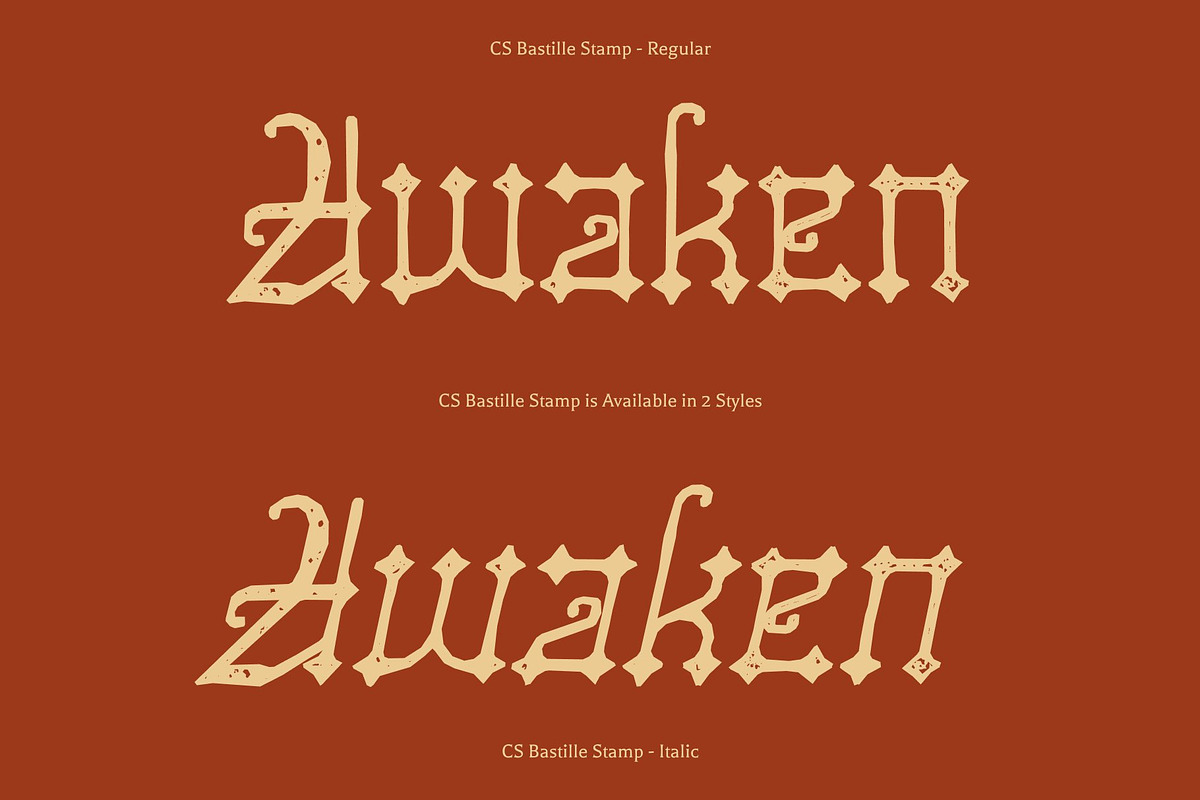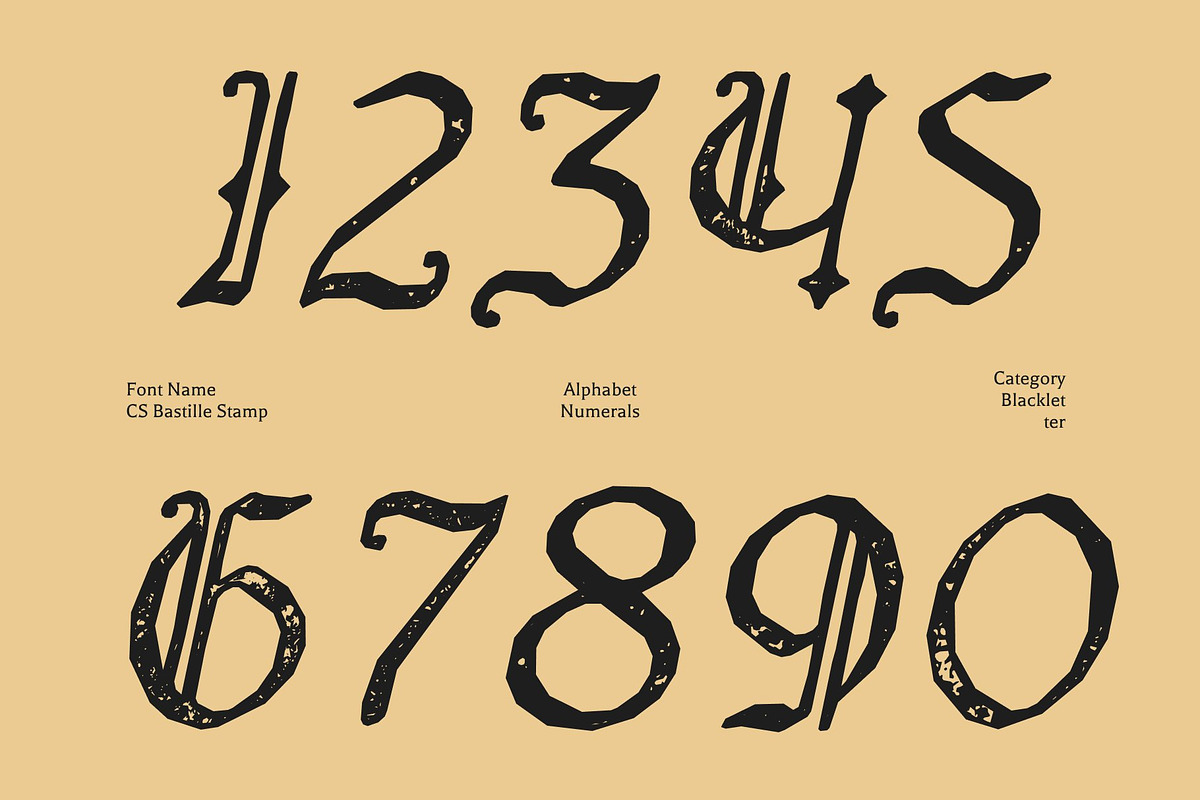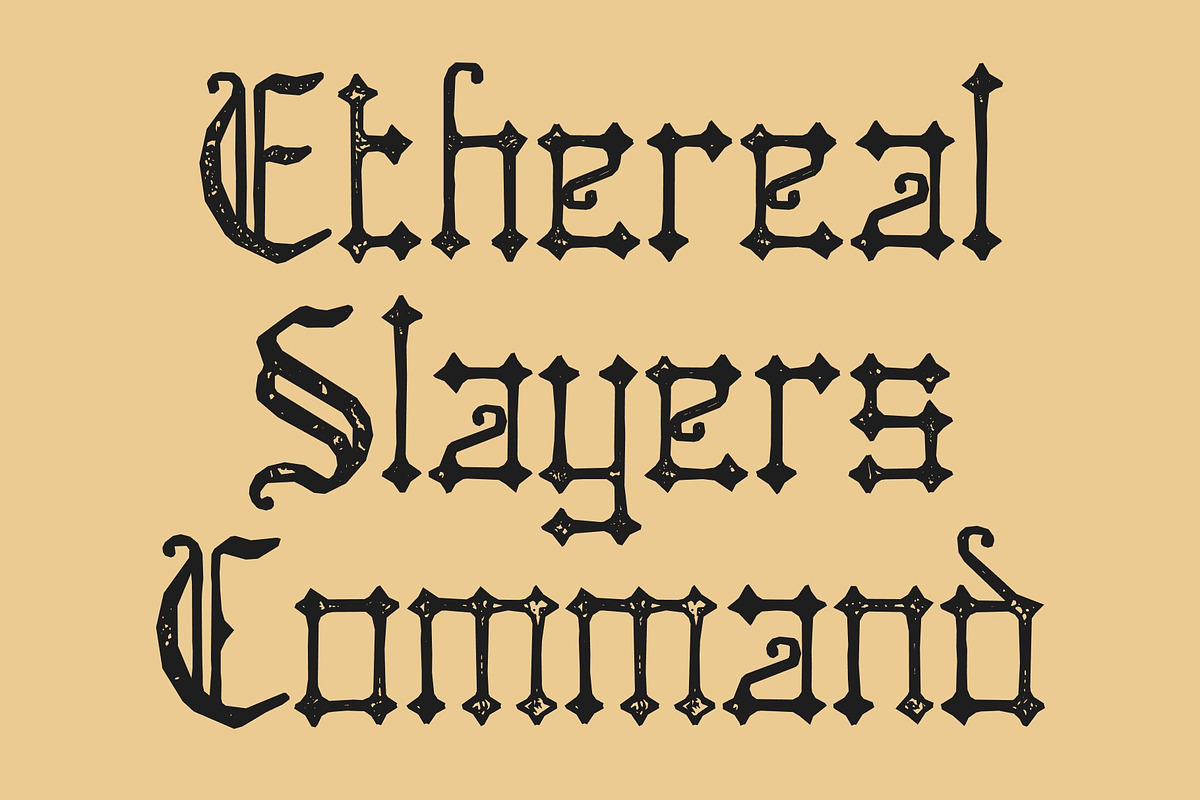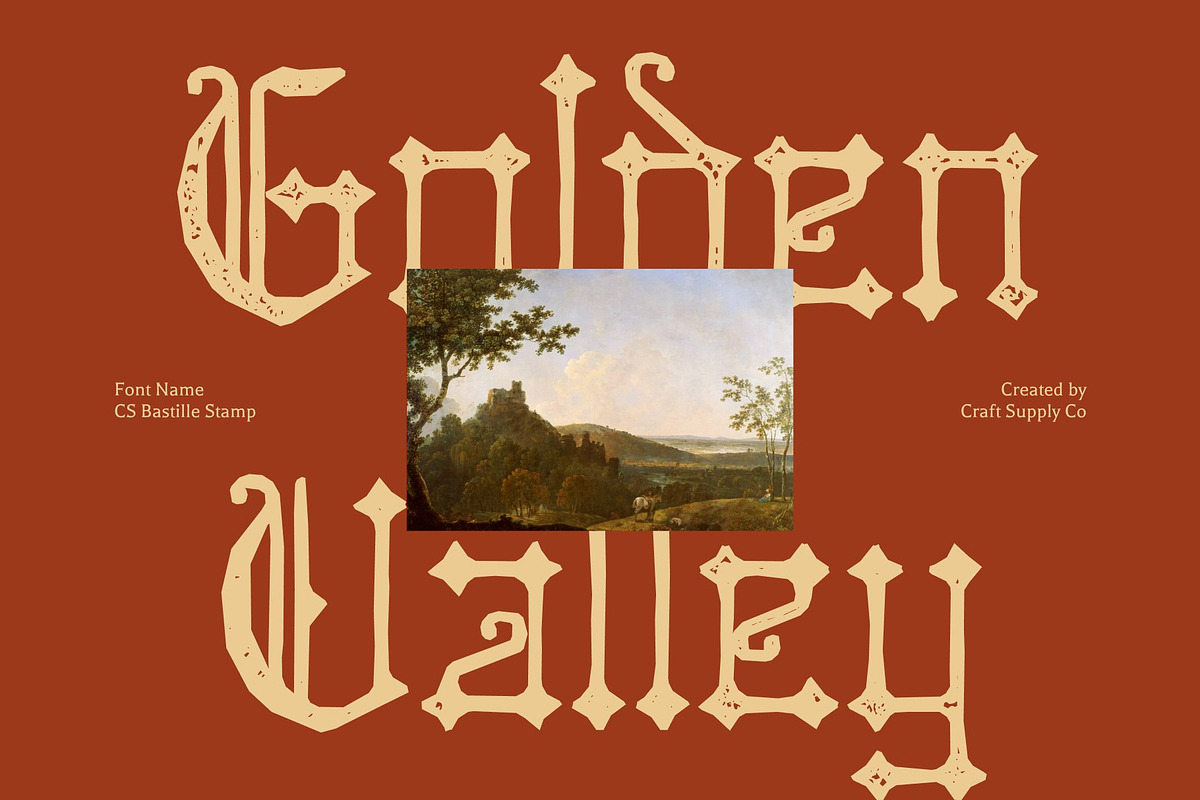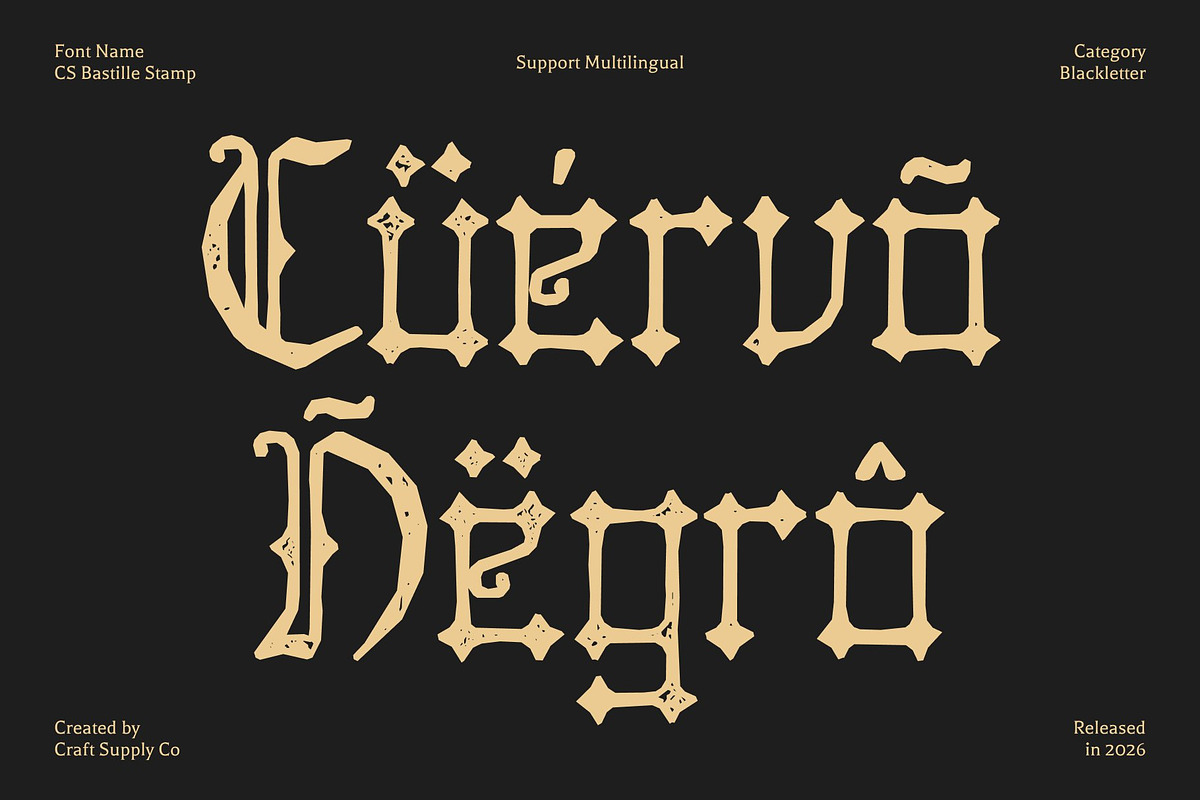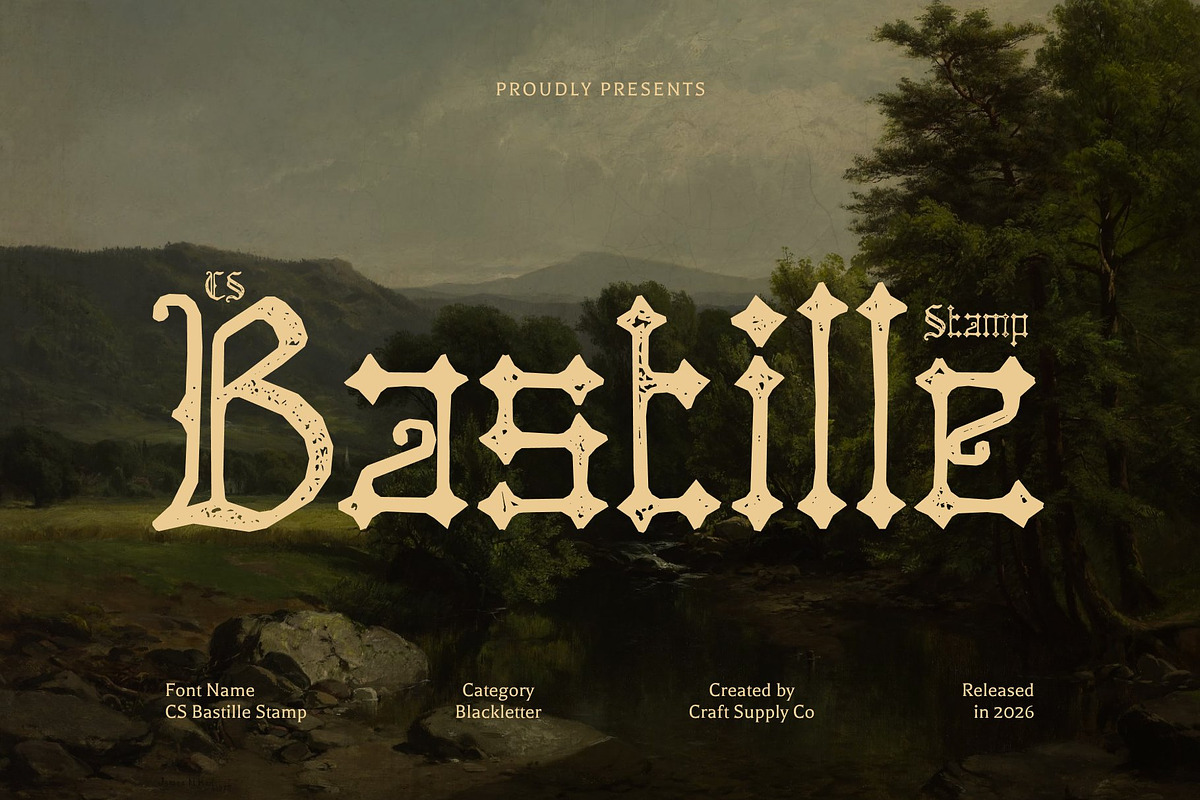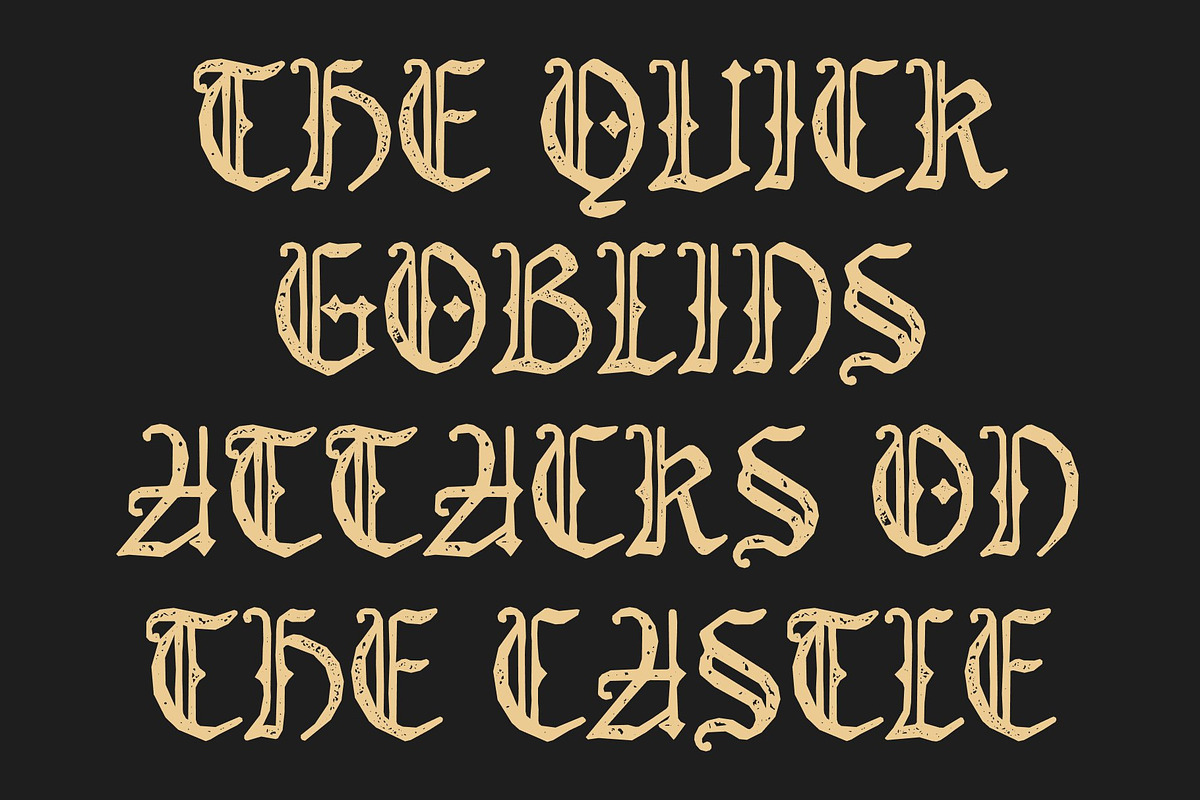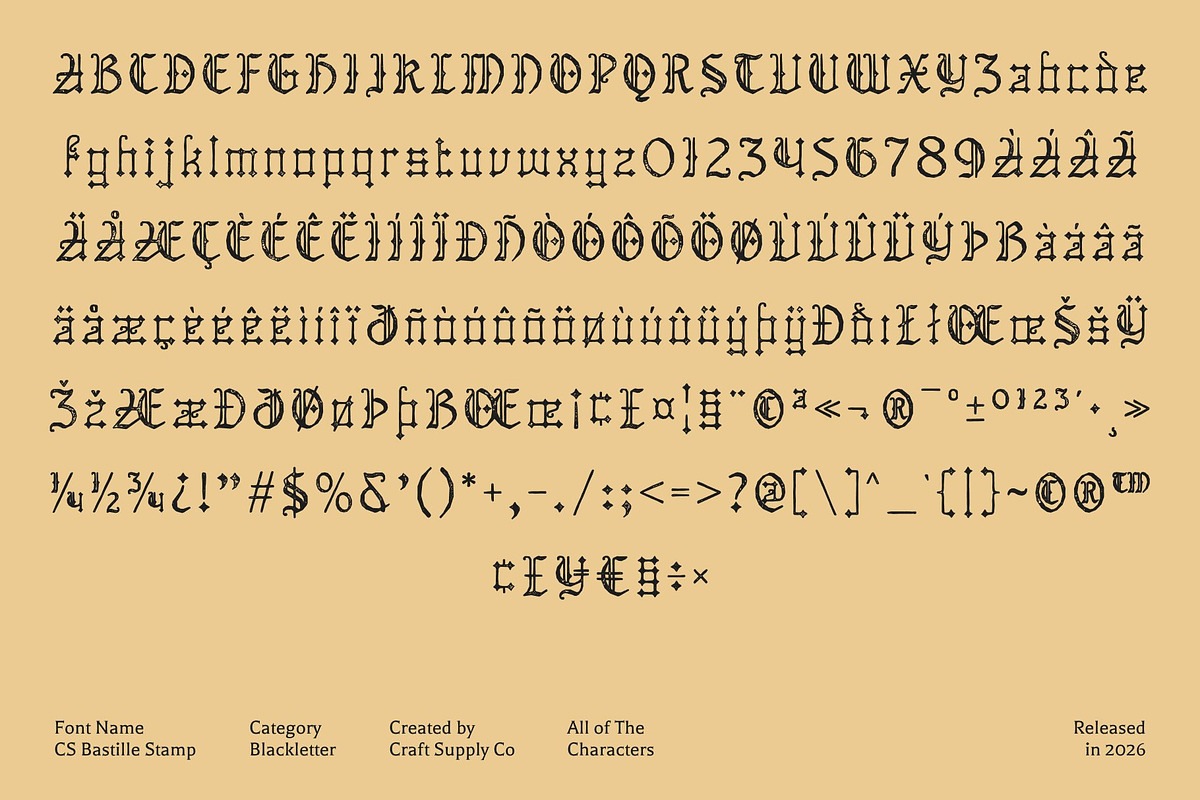
CS Bastille Stamp
CS Bastille Stamp – Blackletter Font: A Heritage Reimagined
Traditional Blackletter with Stamped Vintage Character This is a modern blackletter display font that reinterprets classic Gothic letterforms through a textured, stamped finish. Its sharp, ornamental strokes preserve the historic strength of traditional blackletter, while the stamp effect introduces a tactile, worn quality that feels authentic and expressive. The result is a powerful fusion of old-world heritage and contemporary refinement.
Heritage, Mystery, and Texture in Every Letter Intricate details and bold vertical strokes give this font a dramatic and authoritative presence. The stamped texture adds depth and a slightly distressed feel, evoking the look of antique prints, handcrafted signage, and historical documents. This layered character enhances the font’s sense of mystery, tradition, and timeless elegance without sacrificing readability.
Perfect for Branding and Editorial Statements Designed for high-impact use, this font excels in branding, logos, posters, album covers, and editorial layouts that demand strength and distinction. Its blackletter structure commands attention, while the vintage stamp texture adds sophistication and artistic grit making it especially suitable for luxury branding, heritage-inspired visuals, and dramatic storytelling.
Versatile Blackletter for Classic and Modern Design This font adapts seamlessly across vintage aesthetics and modern compositions. Whether used in historical themes, premium packaging, fashion editorials, or contemporary branding with a dark, elegant edge, this font delivers a timeless blackletter identity enriched with character, texture, and visual authority.
CS Bastille Stamp Regular
CS Bastille Stamp Italic